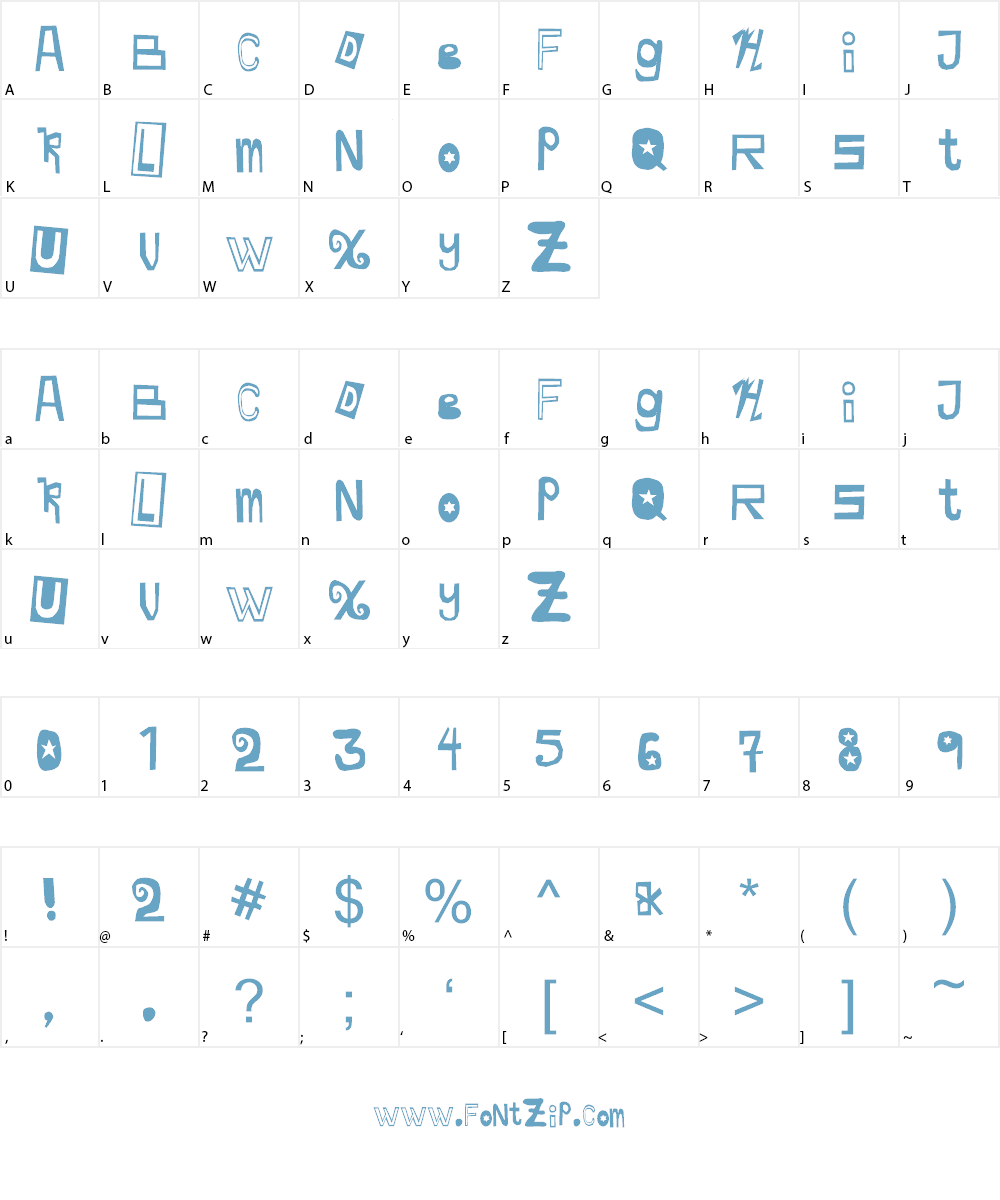
This is the another fan-made font, but also the another ransom note font.
You can access alternates "B" and "f" on Latin Supplement-1 and Latin Extended-2.
You may form the abbreviation by typing "BRS"(capslock).